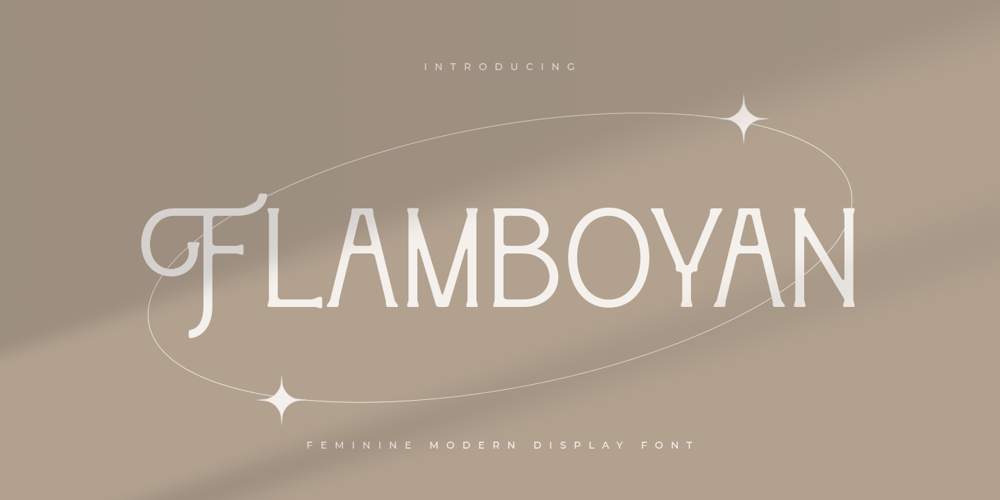
Flamboyan Style Font Family was designed by Zamroni Hamzah and published by Sensatype Studio. Flamboyan Style contains 1 styles and family package options. An unique font for unique feminine branding needs, with extra alternates in unique shape will be ready to add value of your brand. It so nice to leverage designer or product owner that need solutions to make their design look more unique and modern. And specially for this font, We prepared any alternate characters to help you create unlimited variations for your creative needs.Flamboyan Feminine Modern Display Font ready with: Any options to get creative variations (combination of Alternates) Preview as a inspirations that you can do with this font Ready with Lowercase and Uppercase characters Wish you enjoy our font. ๐